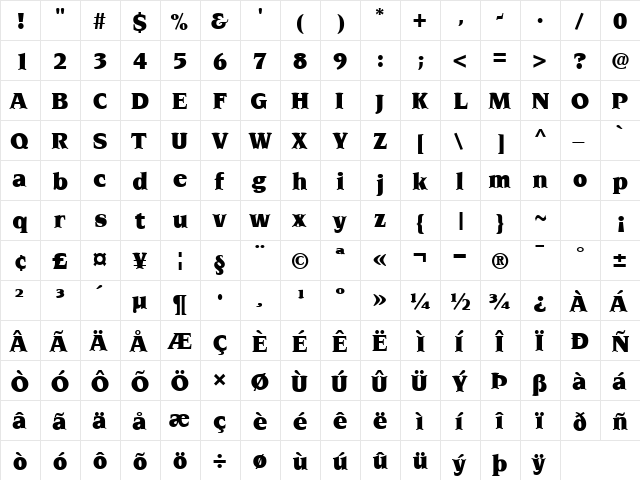
TridentBlackSSK Normal
Design Context for TridentBlackSSK Typeface
TridentBlackSSK takes a measured approach to typography — its balanced proportions and neutral character make it a reliable workhorse for both digital and print work.